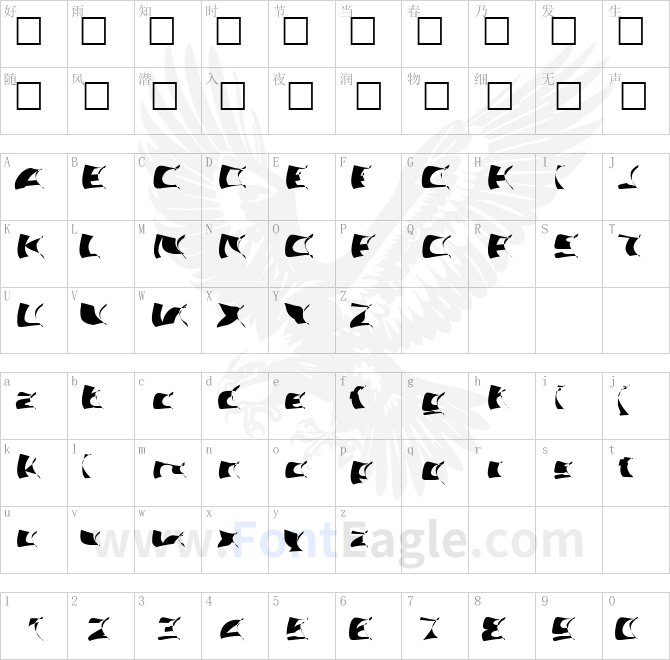
- Font name:Artsee
Artsee is a great font, widely used in graphic design, single-page menu design, poster design and other fields, and is deeply loved by designers.Artsee download.